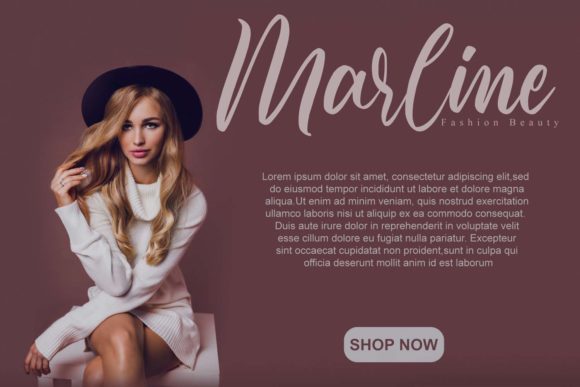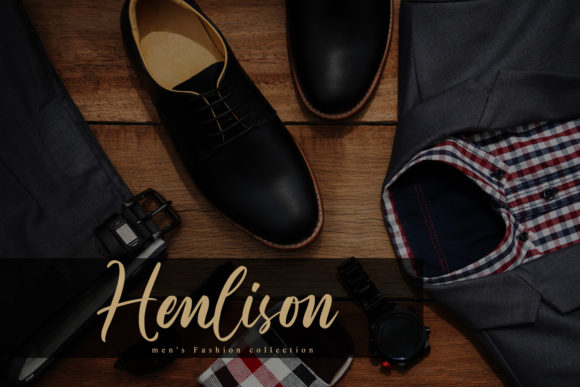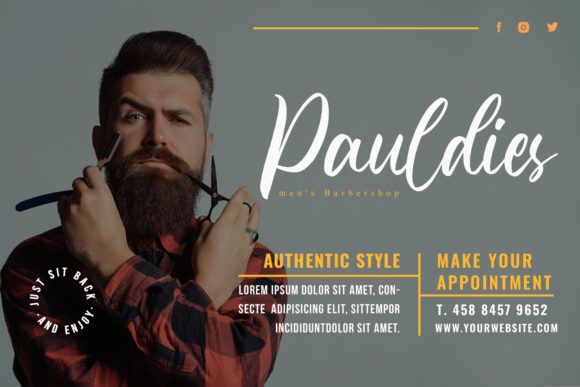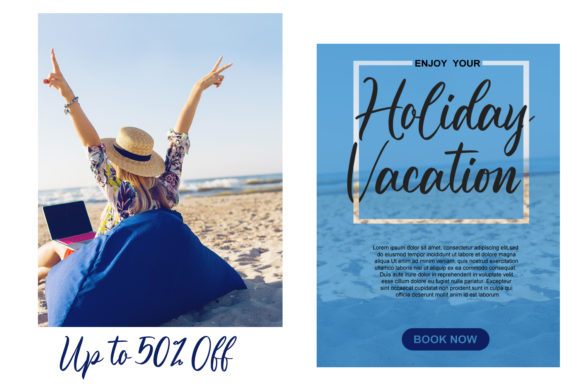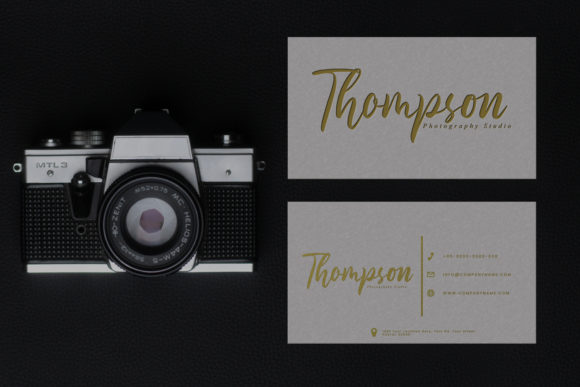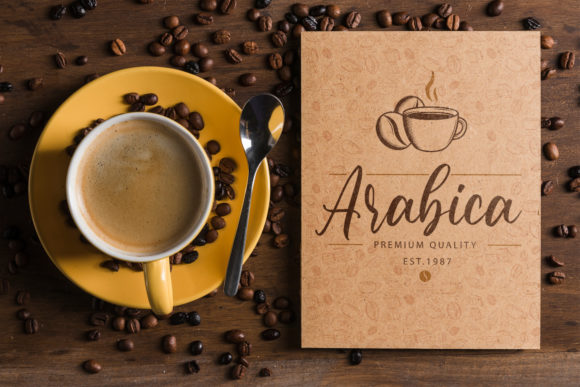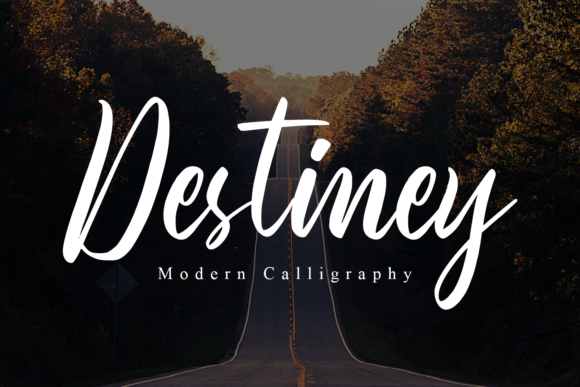
Discover the Elegance of Destiney Font: Elevate Your Designs with a Touch of Sophistication
In the world of typography, few fonts manage to strike a balance between elegance and versatility. Destiney Font is one such exceptional typeface that has captured the hearts of designers and crafters alike. With its unique blend of sophistication and charm, Destiney feels equally dazzling and adaptable, making it the perfect choice for a wide range of design projects.
The Versatility of Destiney Font
Destiney Font is a highly versatile typeface that looks beautiful on any design requiring a customized touch. Whether you’re working on wedding invitations, thank you cards, quotes, or any other creative project, Destiney is sure to add a touch of elegance and sophistication. Its adaptability is one of its most significant advantages, allowing designers to experiment with different styles and applications.
Wedding designers and event planners, rejoice! Destiney Font is an excellent choice for creating stunning wedding invitations, save-the-date cards, and other event-related materials. Its elegant and refined appearance sets the tone for a sophisticated and memorable celebration. With Destiney, you can create beautiful and eye-catching designs that will leave a lasting impression on your guests.
Ideal for Crafters and DIY Enthusiasts
Crafters and DIY enthusiasts will love Destiney Font for its ability to add a personal touch to handmade projects. Whether you’re creating customized gift tags, party decorations, or other crafty endeavors, Destiney is the perfect choice. Its unique and stylish appearance will elevate your creations and make them stand out from the crowd.
Key Features of Destiney Font
- Elegant and Refined Appearance: Destiney Font boasts a sophisticated and elegant appearance that adds a touch of luxury to any design.
- Highly Versatile: Destiney is adaptable to various design applications, making it an excellent choice for a wide range of projects.
- Customizable: With Destiney Font, you can experiment with different styles, sizes, and colors to create unique and personalized designs.
- Easy to Read: Despite its elegant appearance, Destiney Font remains easy to read, making it perfect for body text and quotes.
Tips for Using Destiney Font
To get the most out of Destiney Font, here are some valuable tips:
- Pair with Neutral Colors: Combine Destiney Font with neutral colors like white, beige, or gray to create a clean and sophisticated look.
- Experiment with Sizes: Play with different font sizes to create visual hierarchy and add emphasis to specific design elements.
- Add Decorative Elements: Enhance your design with decorative elements like ribbons, flowers, or other graphics to complement Destiney’s elegant appearance.
Destiney Font is a stunning typeface that offers a perfect blend of elegance and versatility. Its adaptability and customizable nature make it an excellent choice for designers, crafters, and DIY enthusiasts. Whether you’re working on wedding invitations, thank you cards, quotes, or other creative projects, Destiney Font is sure to elevate your designs and add a touch of sophistication. So, go ahead and discover the beauty of Destiney Font – your designs will thank you!